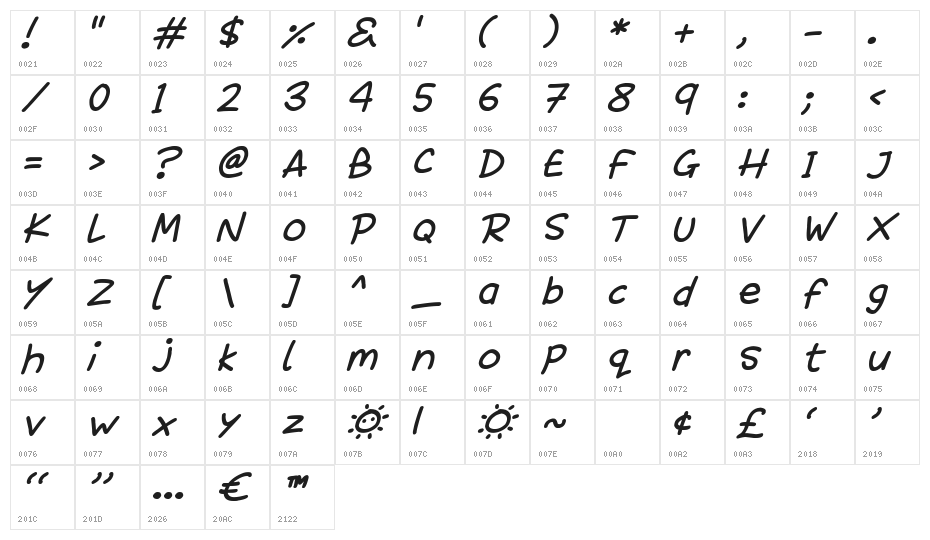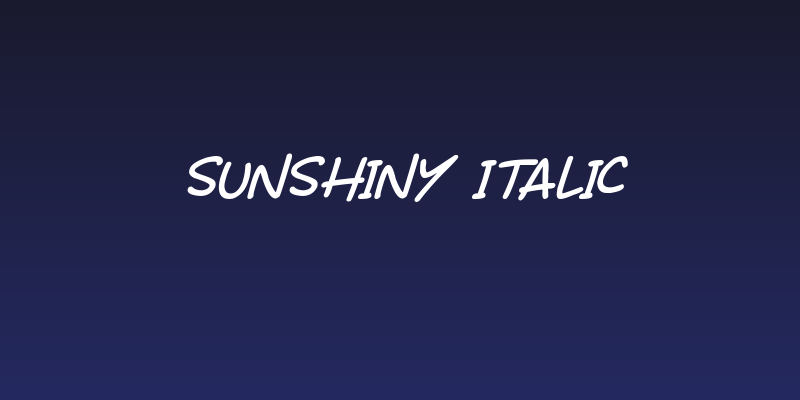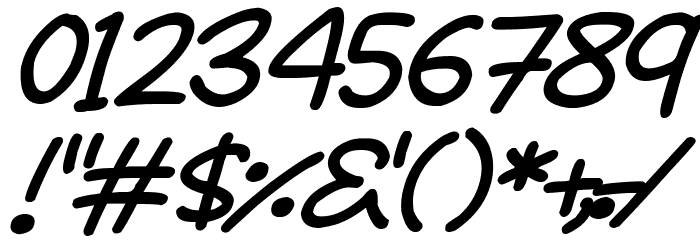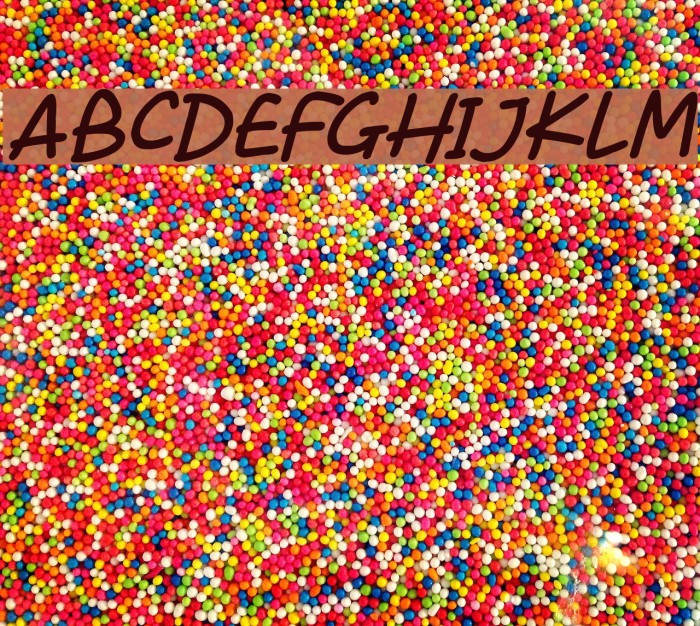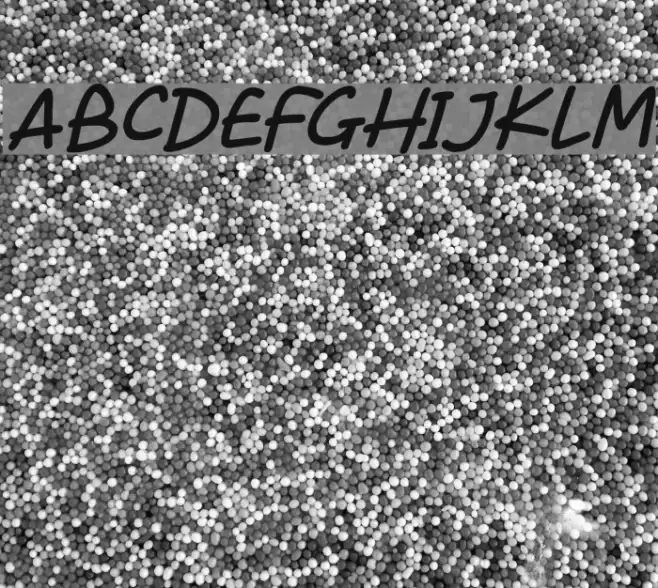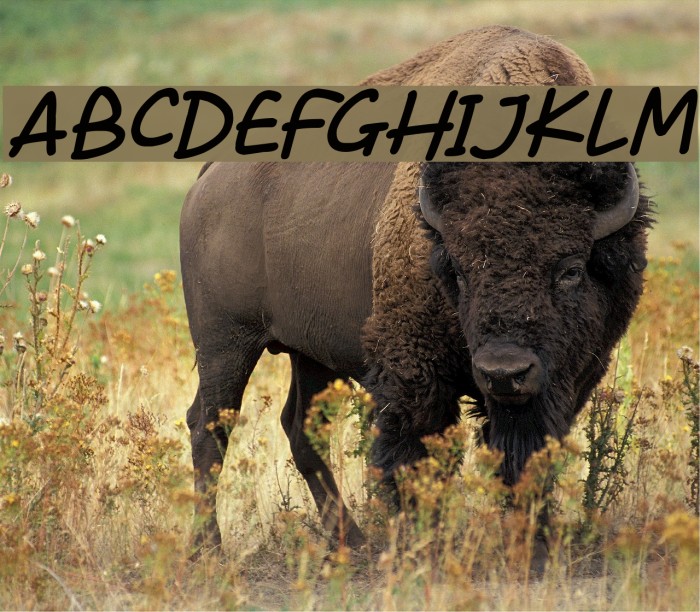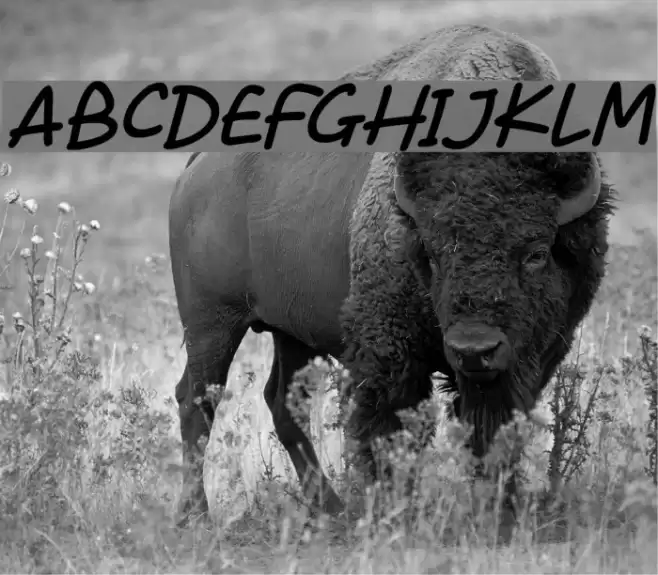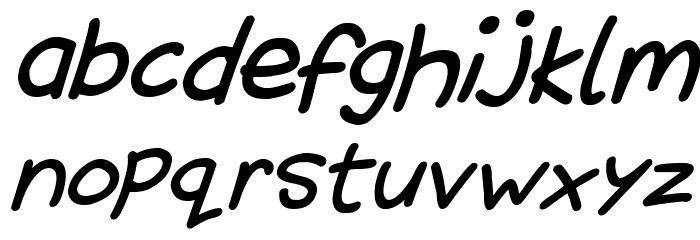
Sunshiny Italic Font
Sunshiny Italic Description
This font features a playful and dynamic script style, characterized by its fluid, handwritten appearance. The letters are slightly slanted, giving it an italicized look that adds to its casual and friendly vibe. The strokes are smooth and consistent, with rounded edges that enhance its approachable feel. The uppercase and lowercase letters maintain a cohesive style, while the numerals and special characters integrate seamlessly into the overall design. This font's lively and informal nature makes it suitable for projects that require a personal touch.
| Overall Style | Casual |